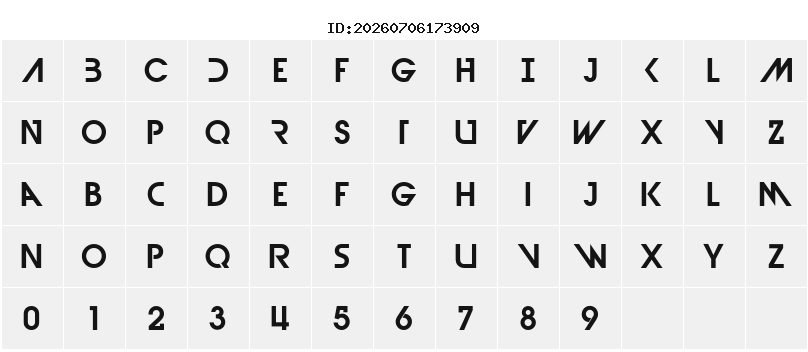
• Font Name: Devil Breeze
• Font Style: Demi
• Full Font Name: Devil Breeze Demi
• Designer: Wesley Pastrana
• Manufacturer: Wesley Pastrana Rosado(Weslo GFx)
About Devil Breeze.ttf
Devil Breeze.ttf is a modern, elegant sans-serif font designed for ultimate readability and visual harmony. Perfect for branding, headlines, web design, and print materials.